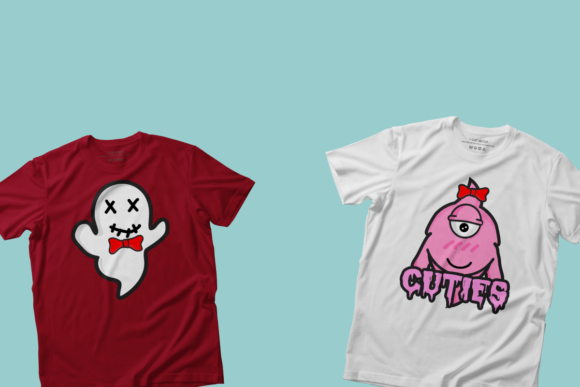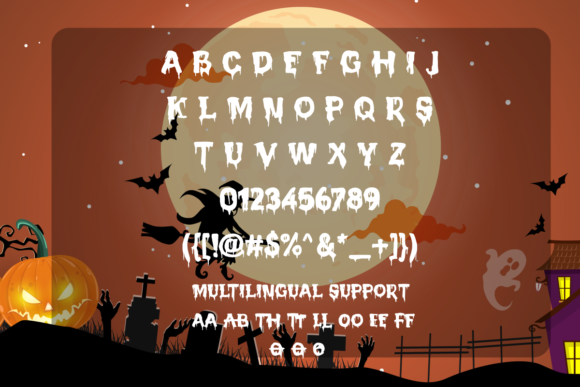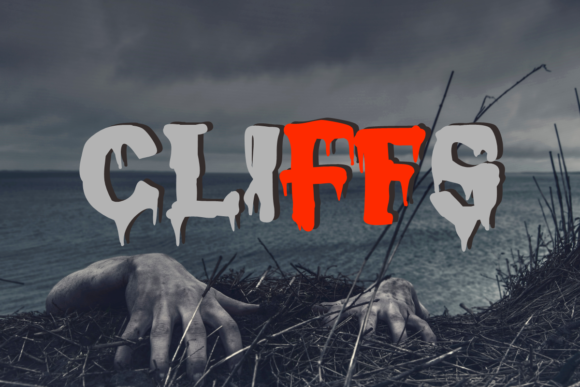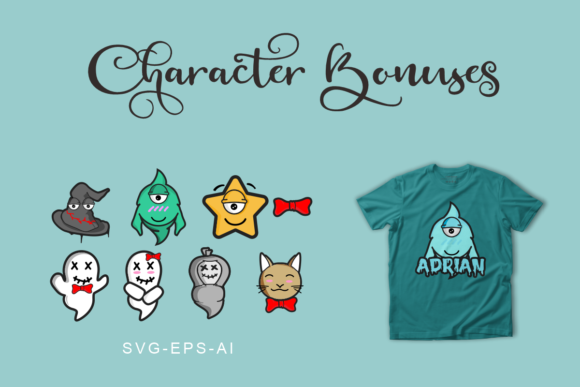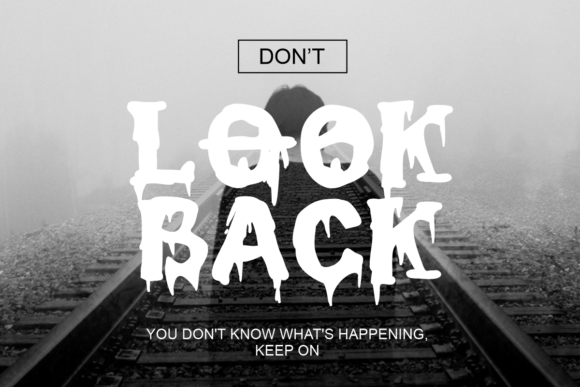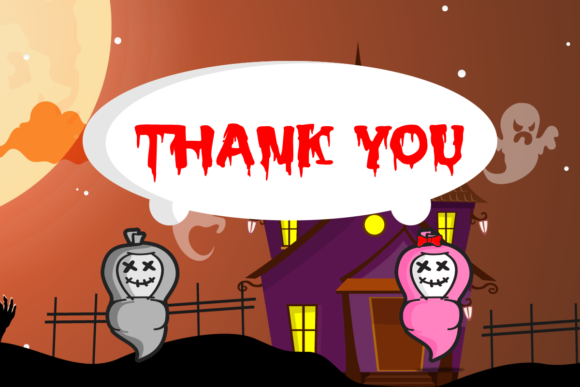
Introducing Deemit Font: The Perfect Addition to Your Halloween Crafting Projects
Are you a designer or crafter looking for a unique and playful font to add to your Halloween-themed projects? Look no further than Deemit Font! This wonderful display font features fun characters and a bonus set of cute monsters that are sure to bring a smile to your face. In this article, we’ll take a closer look at Deemit Font and explore how you can use it to create amazing designs for Halloween and beyond.
What is Deemit Font?
Deemit Font is a display font designed to add a touch of whimsy and fun to your designs. With its playful characters and adorable monsters, it’s the perfect choice for Halloween-themed projects, children’s party invitations, and other designs where you want to add a bit of personality. The font comes with a range of characters, including letters, numbers, and punctuation marks, as well as a set of bonus monsters that you can use to really make your designs pop.
Key Features of Deemit Font
- Fun and playful characters: Deemit Font features a range of fun and playful characters that are sure to add a touch of personality to your designs.
- Cute monster bonus: The font comes with a set of adorable monsters that you can use to add an extra touch of whimsy to your designs.
- Perfect for Halloween: With its spooky-cute vibe, Deemit Font is the perfect choice for Halloween-themed projects.
- Easily customizable: The font is easy to customize, so you can adjust it to fit your design needs.
How to Use Deemit Font in Your Designs
Deemit Font is easy to use in a variety of design projects. Here are a few ideas to get you started:
- Halloween party invitations: Use Deemit Font to create spooky-cute invitations for your Halloween party.
- Children’s party decorations: Add a touch of whimsy to your children’s party decorations with Deemit Font.
- Halloween crafts: Use Deemit Font to add a personal touch to your Halloween crafts, such as pumpkin decorations and spooky signs.
- Social media graphics: Use Deemit Font to create fun and engaging social media graphics for Halloween.
Tips for Getting the Most Out of Deemit Font
Here are a few tips for getting the most out of Deemit Font:
- Experiment with different colors: Deemit Font looks great in a range of colors, so don’t be afraid to experiment and find the perfect color for your design.
- Mix and match characters: Deemit Font features a range of fun characters, so try mixing and matching them to create a unique look.
- Add your own graphics: Consider adding your own graphics or illustrations to really make your design stand out.